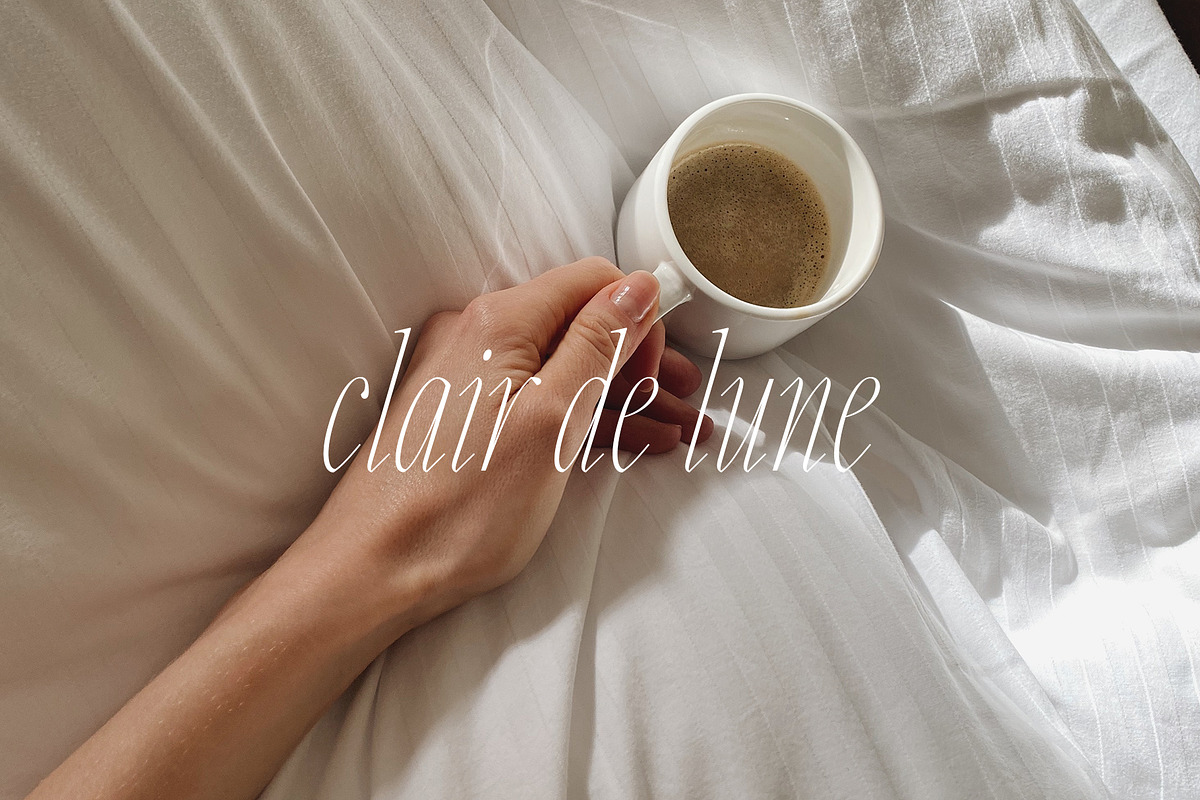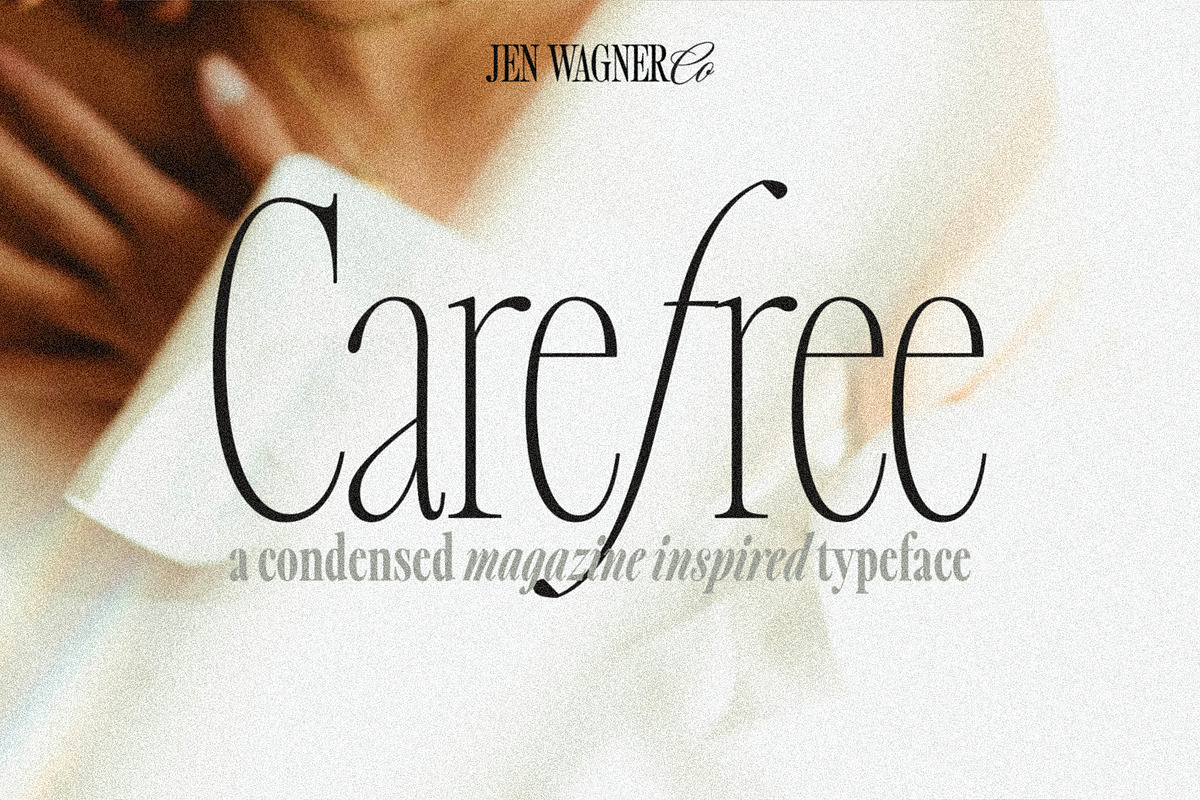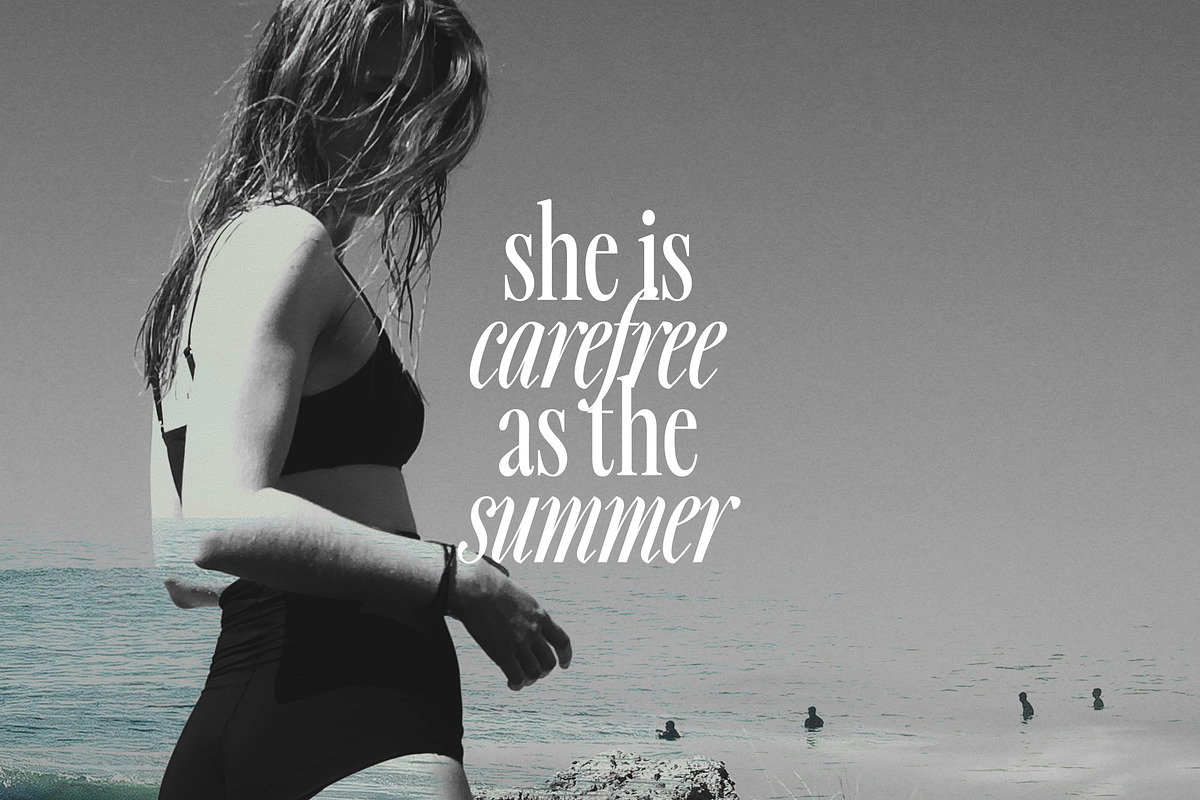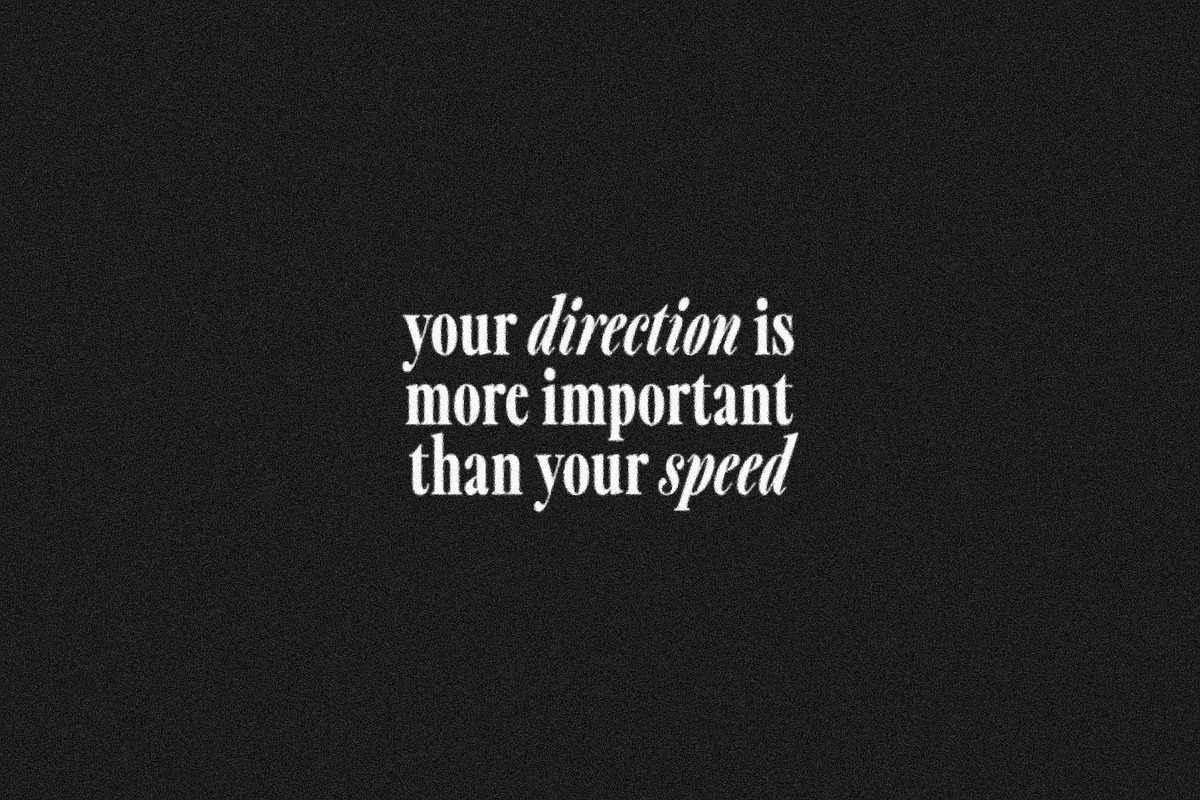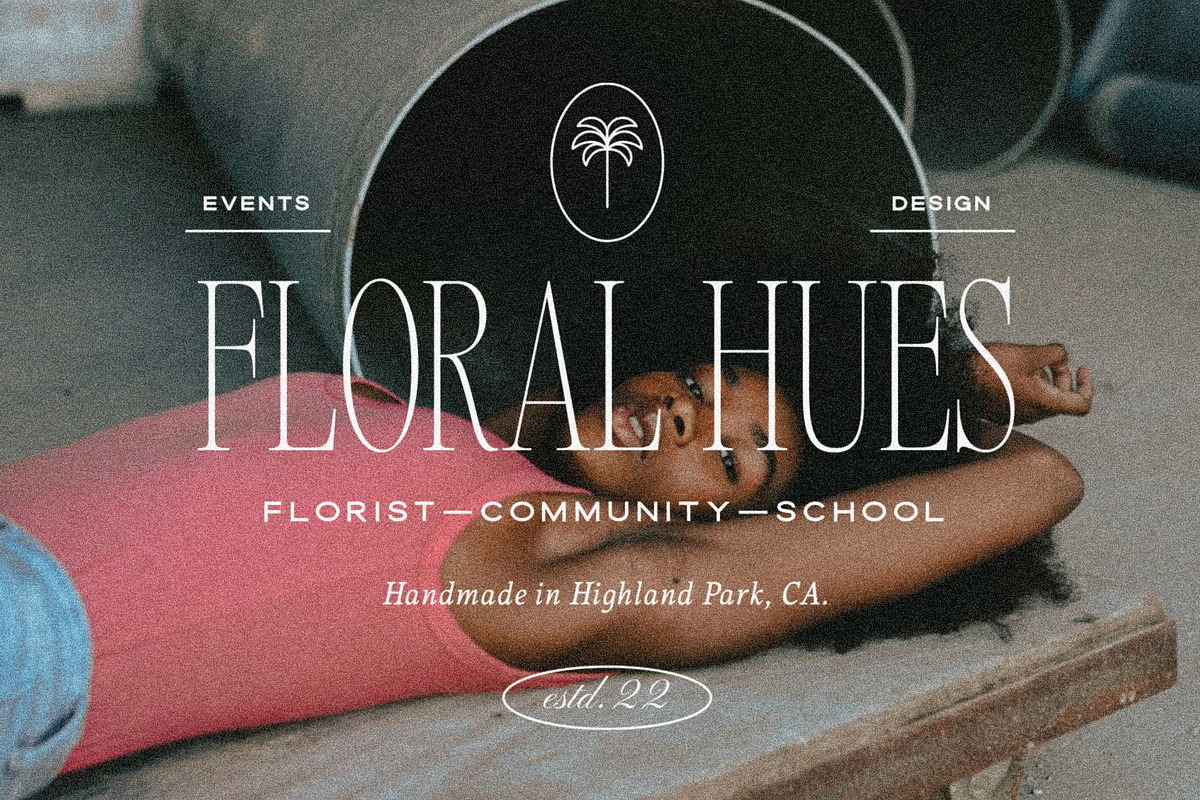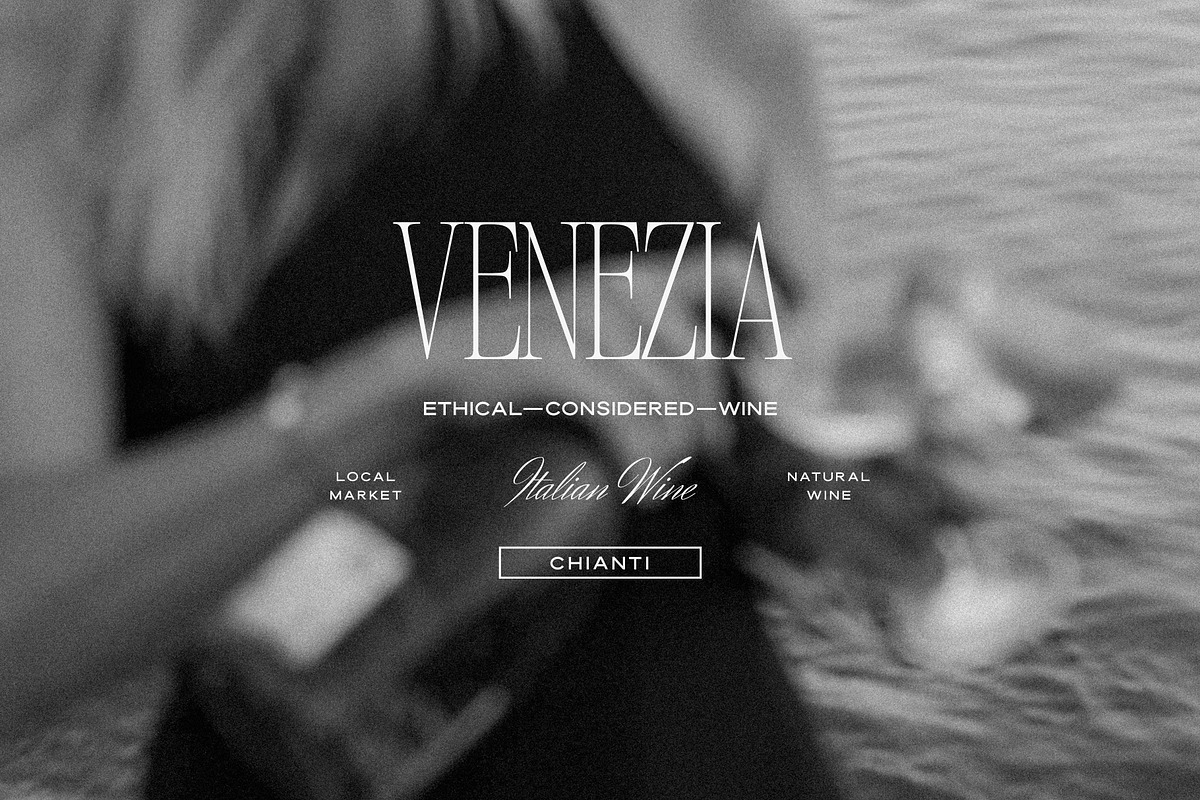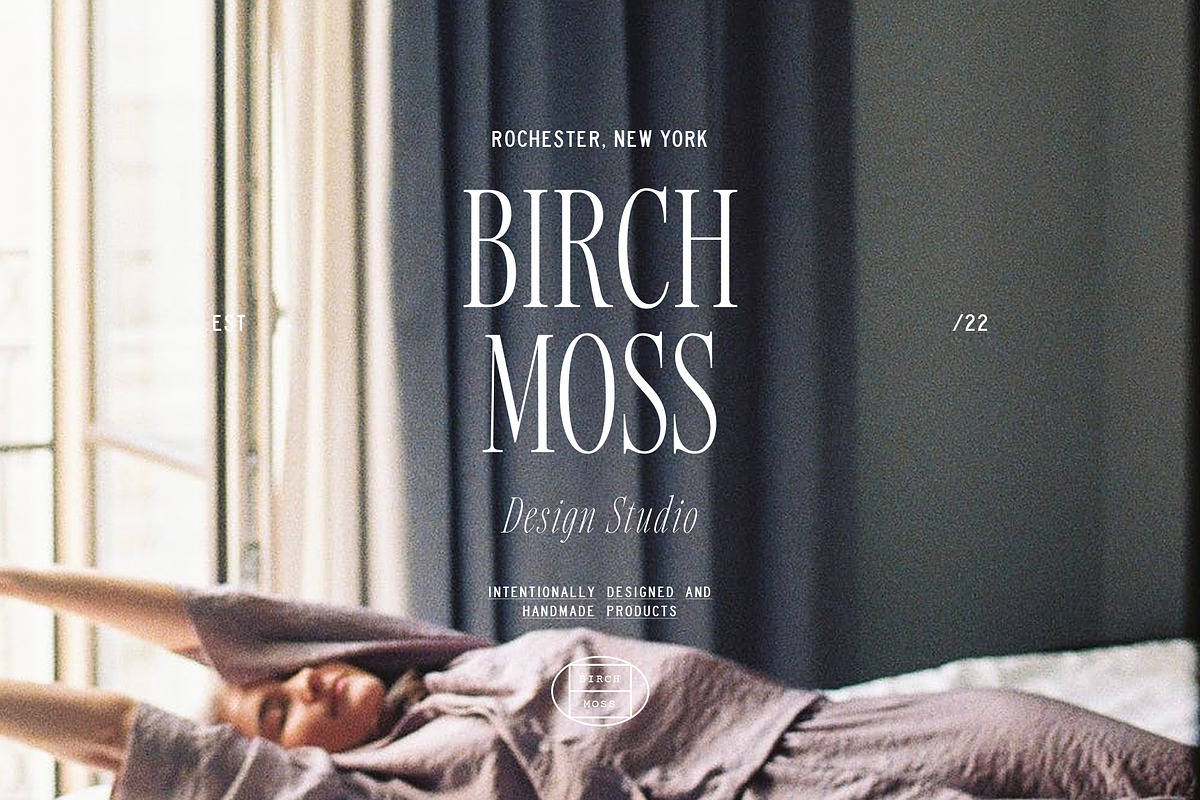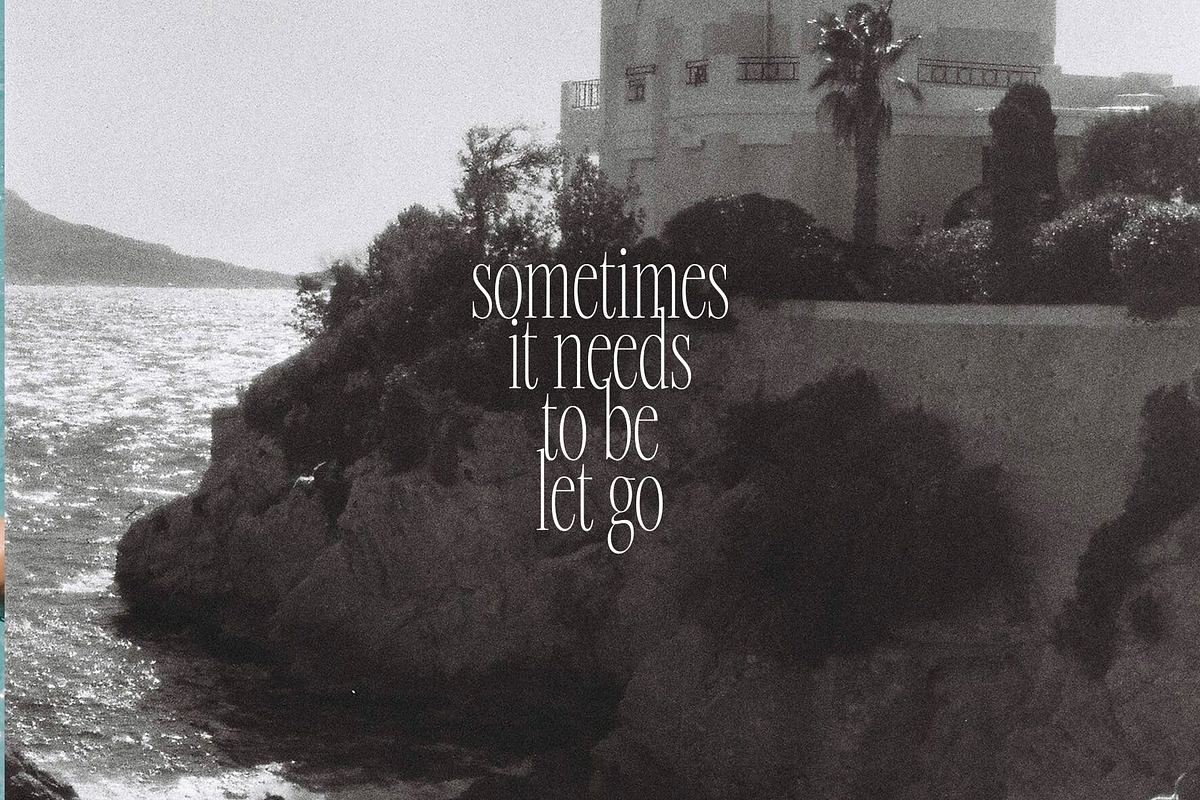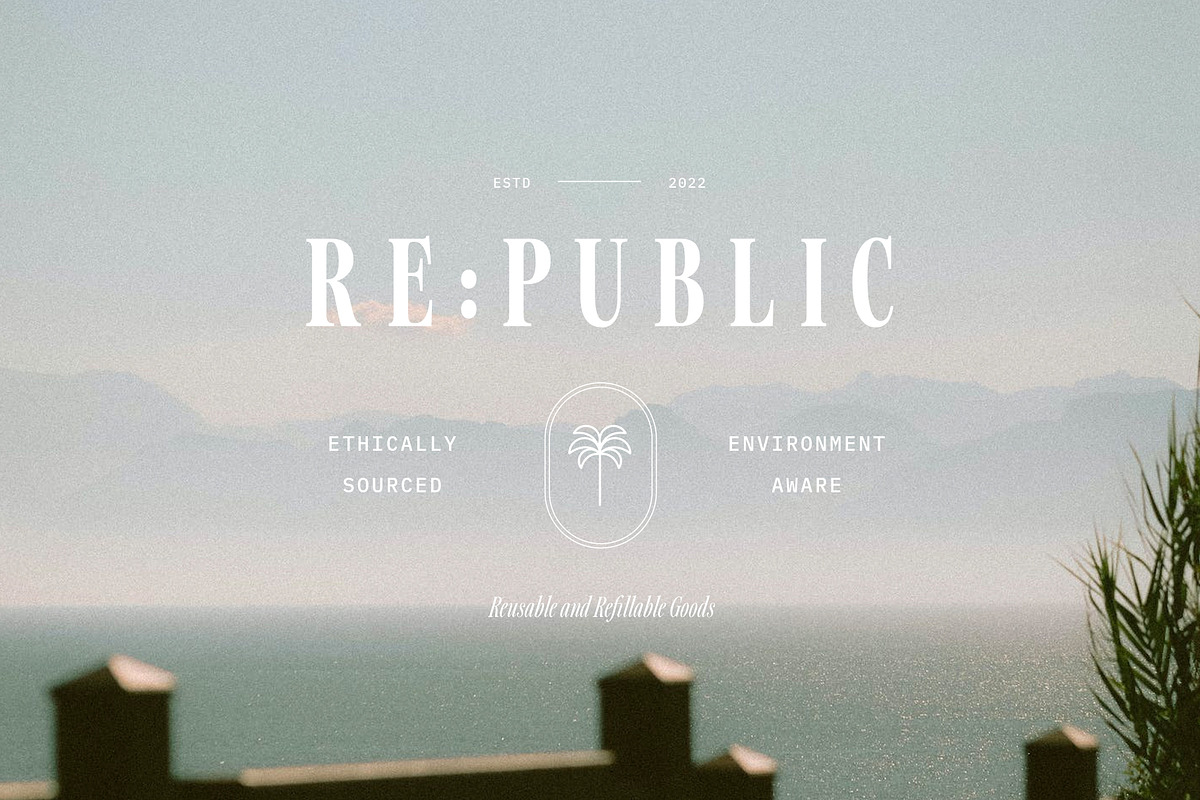
Carefree | A Crisp 16-Font Serif
Introducing the Carefree Serif family – a gorgeous condensed serif typeface that includes 16 fonts, regular and italic, from Hairline weight to Bold.
Ironically, Carefree has been one of the more difficult serifs I've designed (but well worth it!). What started as an experiment with sharp angled italics eventually blossomed into the full family you see here, and I am head over heels for it!
Carefree makes it so simple to elevate a logo or headline text, whether you're wanting something bold or delicate.
This typeface looks best in larger settings as a display text (think big headers, pretty quotes, calls to action, etc.), but can also be really stunning for longer text like quotes (see image #4). I would probably avoid using this as a body text because of the high contrast.
I've also been loving combining the regular and italic and mixing up the weights, especially for beautiful logos (see the "Olive + Oak" logo, image #2)
One thing to note about Carefree is the letter spacing. It was intentionally spaced for clean reading and intentional balance, so I recommend setting the spacing a little tighter if you want to create the trendy, all caps look found in many of these images (around -10 to -20 should do!).
Recommended Font Pairings:
- Essential Sans (the sans you see here and there in the images)
- Herr Von Muellerhoff (the script used in the images)
- Dallas